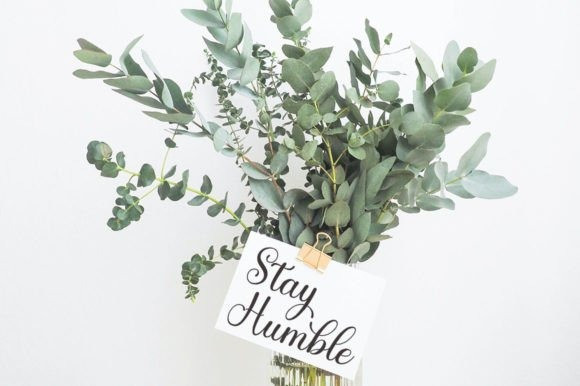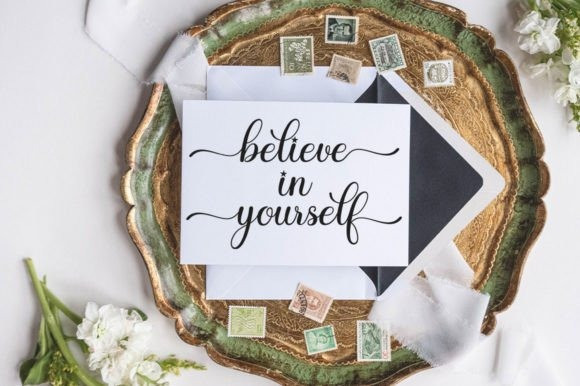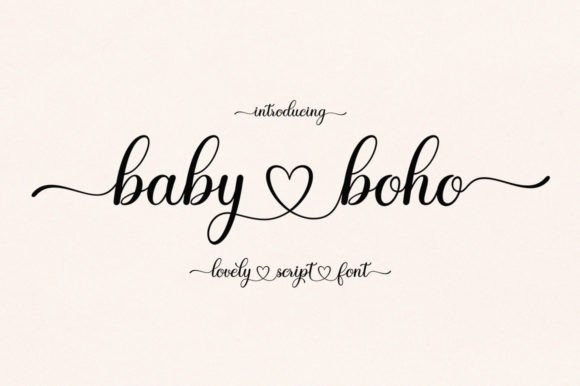
Baby Boho Font
Baby Boho Calligraphy Font is a beautiful and sweet handwritten script font. This soft font will look great on a variety of design ideas. This will add a fun and romantic touch to any of your projects!